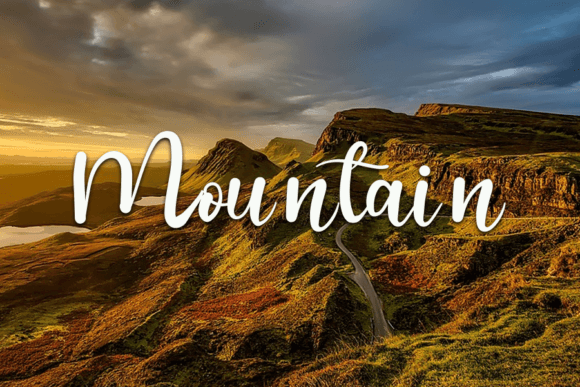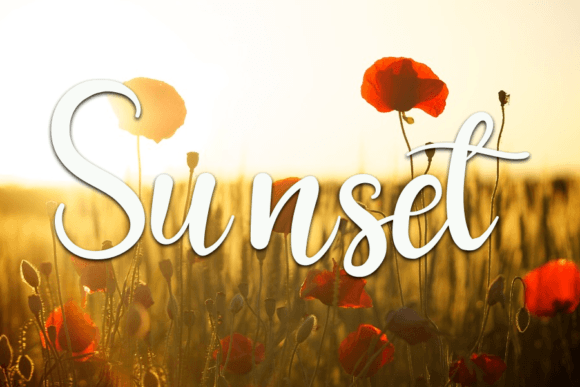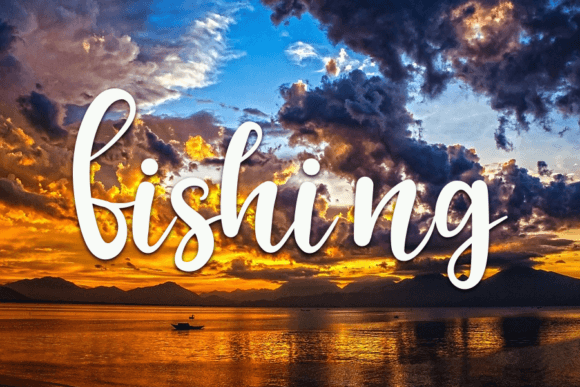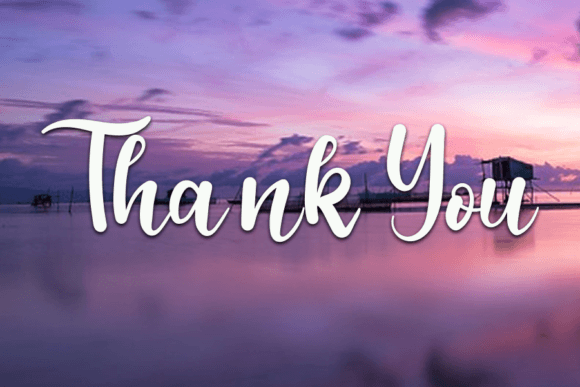
Introduction to Miss Font
Have you ever been in the middle of a creative project, surrounded by papers, glue, and an endless array of color options, and suddenly, you need the perfect font to bring it all together? For many of us, that moment of inspiration is what makes the design process truly magical. And for those seeking that special something, Miss Font is here to save the day.
Miss Font is a delightful, handwritten font that exudes warmth and friendliness. Its high-quality design makes it an excellent choice for any creative project, from digital design and presentations to crafting and creating beautiful greeting cards. Whether you’re a seasoned designer or a crafty enthusiast, this versatile font is sure to become a trusted design resource.
What sets Miss Font apart is its accessibility – it’s available for free download, and with its transparent background, you can easily incorporate it into your designs without any distractions. For designers, Miss Font is a valuable addition to their toolkit, offering a unique touch that can elevate any project to the next level.
Key Features of Miss Font
- High-quality vector font with a transparent background, ideal for creative projects requiring a clean and minimalist design.
- Designed with precision, Miss Font features a high-resolution (300 DPI) and scalable design, perfect for use in various applications.
- Unique characteristic: Miss Font’s elegant and modern design makes it an excellent choice for branding, logos, and typography-based creative projects.
- Perfect for designers seeking a high-quality, free design resource with a transparent background, Miss Font is an excellent addition to any design library.
Honest Review: Miss Font
I recently had the chance to dive into the world of typography with Miss Font, and I must say it’s been an exciting journey. This high-quality font is a perfect addition to any creative project that needs a touch of elegance.
One of the standout features of Miss Font is its transparent background, which makes it incredibly versatile and easy to use. This feature allows designers to focus on the content rather than the background, making it a game-changer for any design project.
Here are some of the things that work well with Miss Font:
- ✨ High-quality design that’s perfect for any creative project
- ✨ Transparent background for seamless integration
- ✨ Excellent design resource for typography enthusiasts
- ⚠️ Limited customization options, which may not be ideal for designers who prefer a more hands-on approach
- ⚠️ Not suitable for projects that require bold, attention-grabbing typography
Overall, I’m thoroughly impressed with Miss Font. It’s a reliable and stylish design resource that’s perfect for any creative project. Whether you’re a seasoned designer or just starting out, Miss Font is definitely worth checking out.
Tips for Getting the Most Out of Miss Font
For the best results, use Miss Font in a high-quality design project. Experiment with different font sizes, colors, and transparency settings to create a unique look. Consider combining Miss Font with other design resources for a truly creative project.
Common Use Cases for Miss Font
Miss Font is ideal for use in digital designs, such as social media graphics, presentations, and brochures. It’s also a great resource for creating high-quality print materials, like business cards and flyers. With a free download available, Miss Font is a valuable design resource for any creative project.